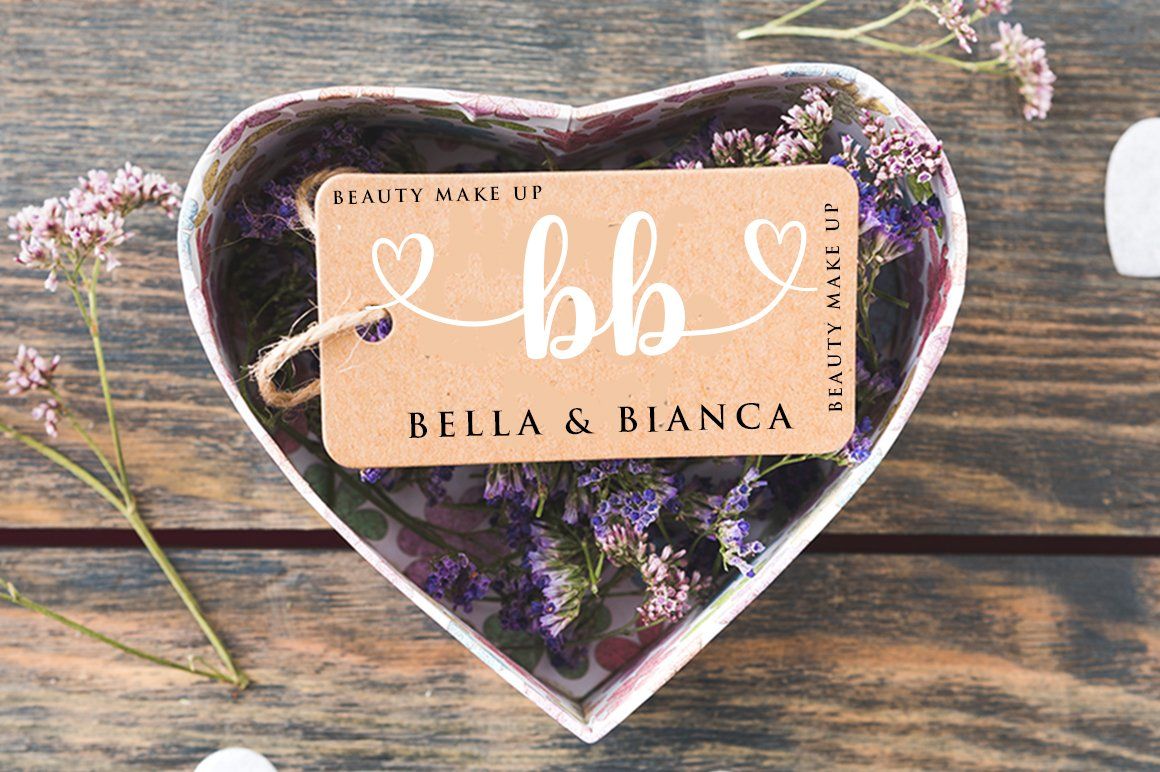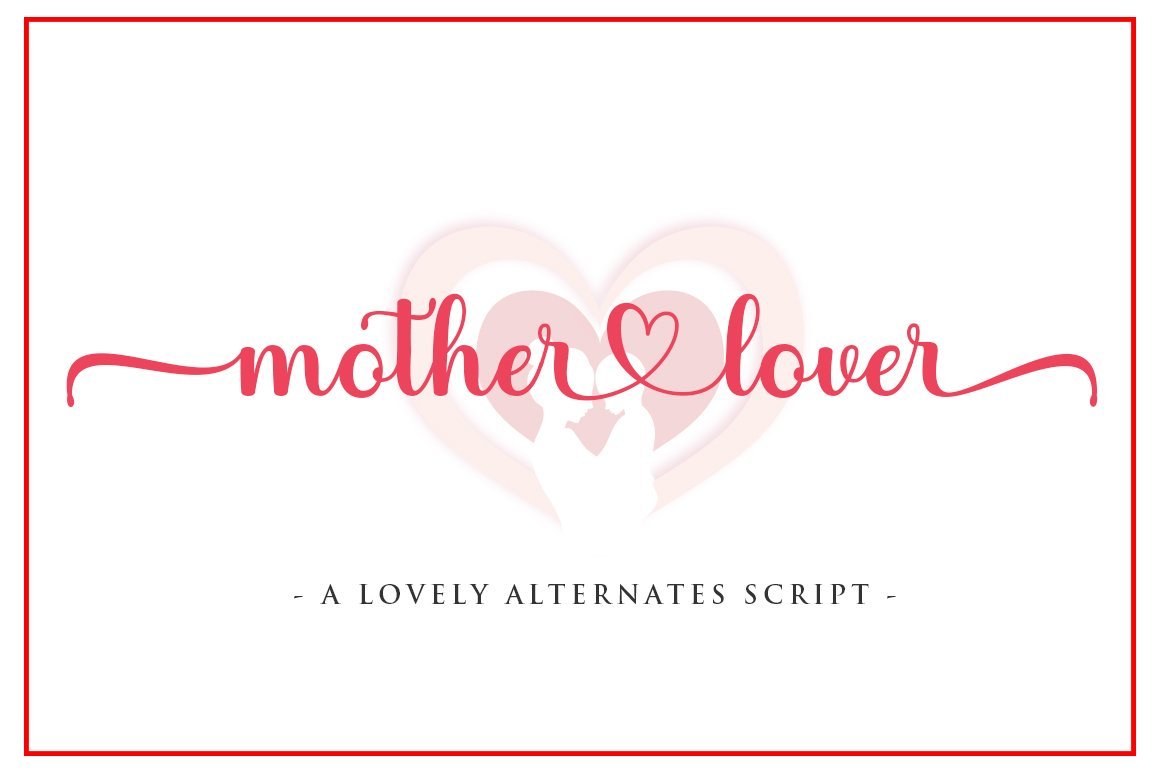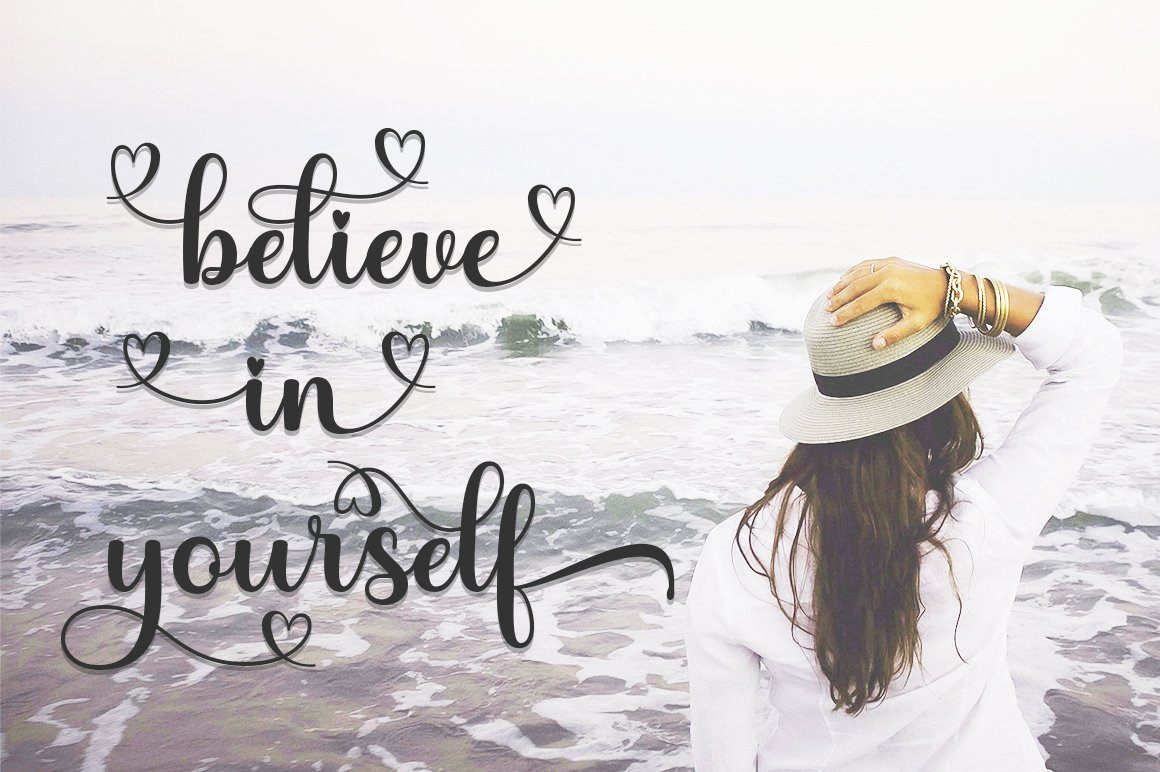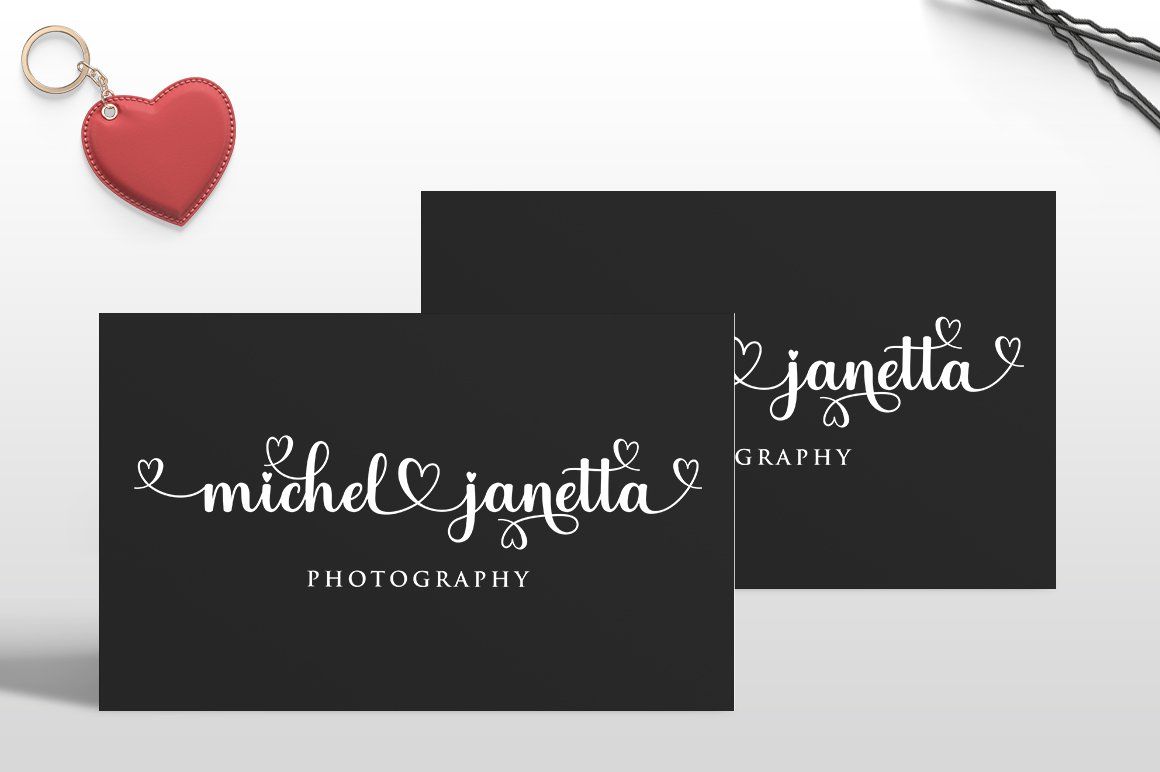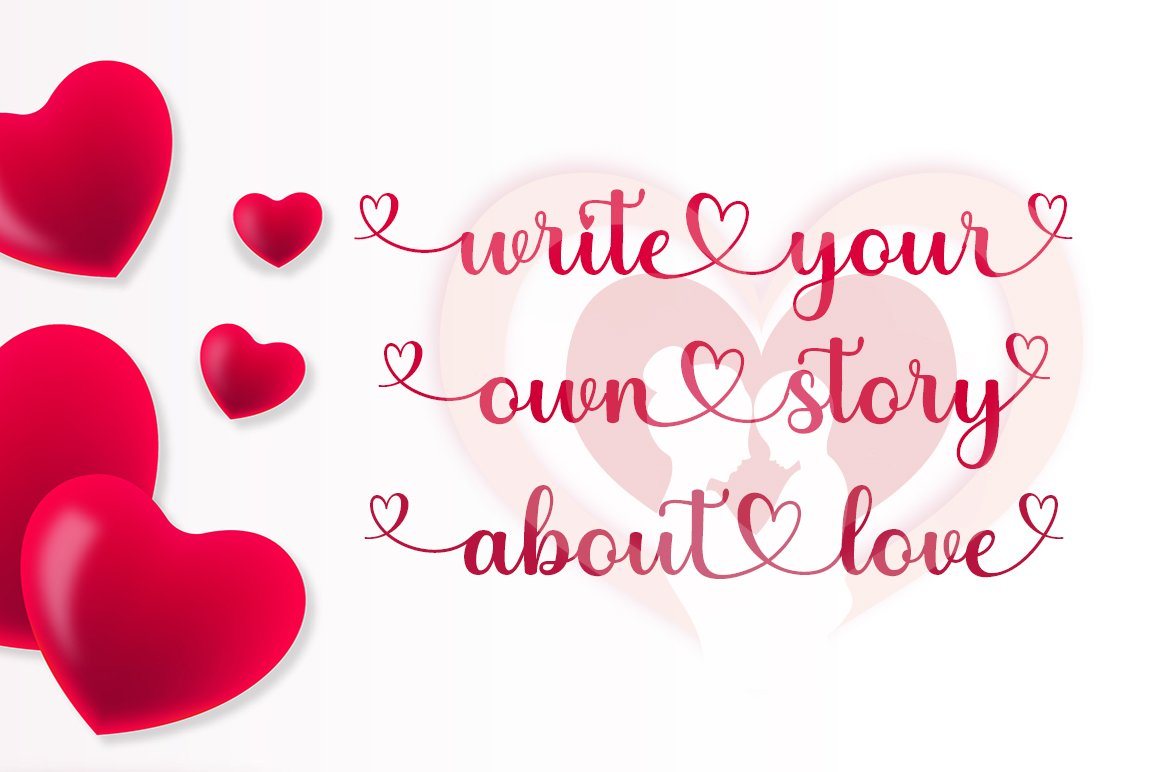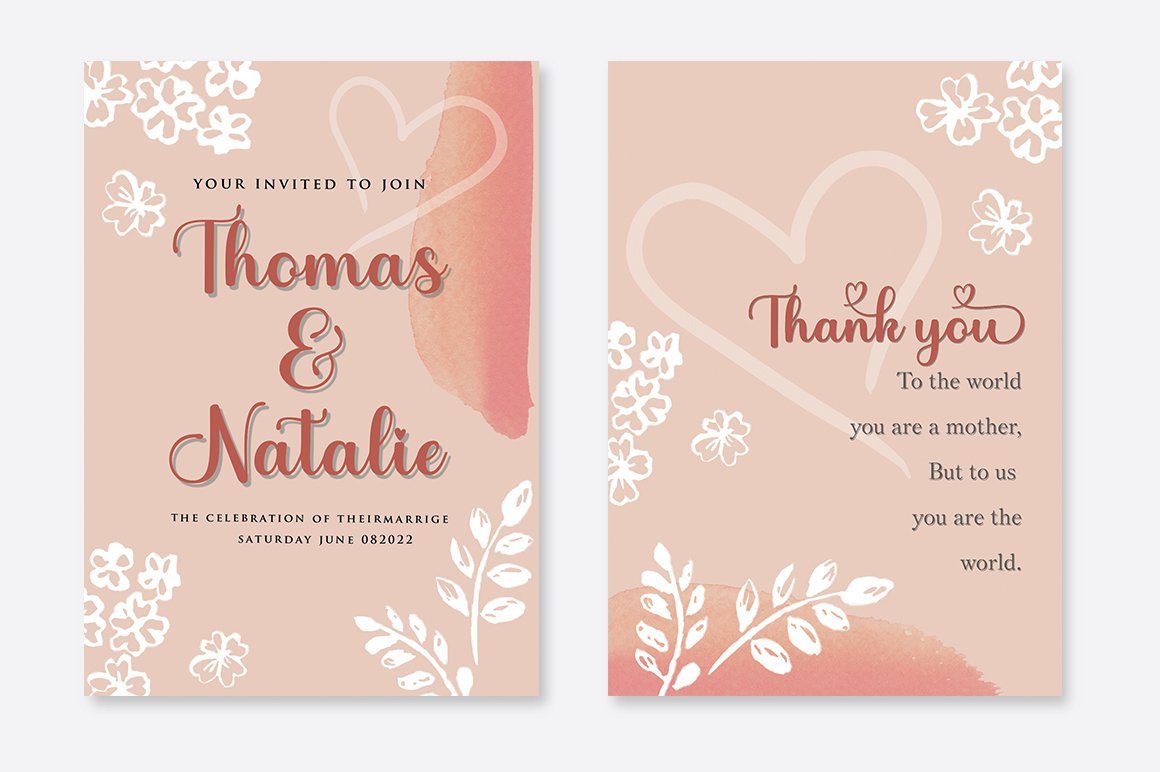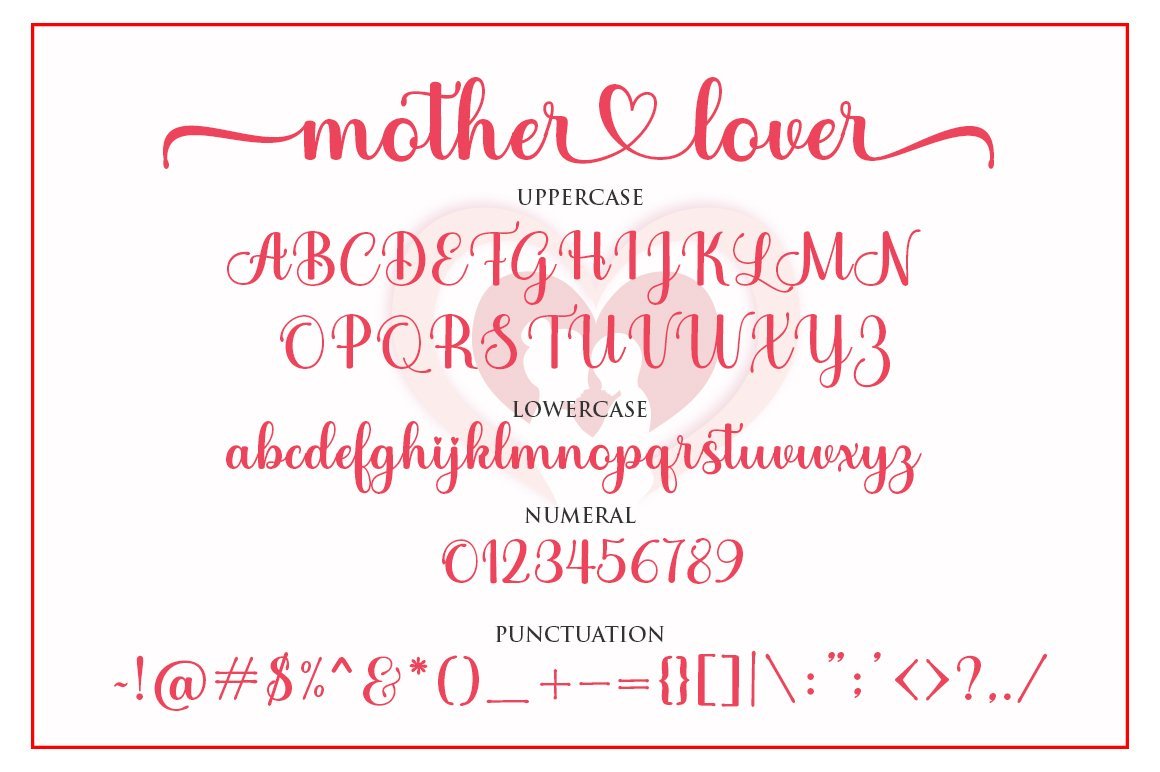
mother lover
About mother lover
mother lover is an amazing handwritten font. Fall in love with its incredibly versatile style and use it to create beautiful wedding invitations, logos, fashions, beautiful stationery, eye-catching social media posts and more! This font is PUA encoded which means you can access all glyphs and